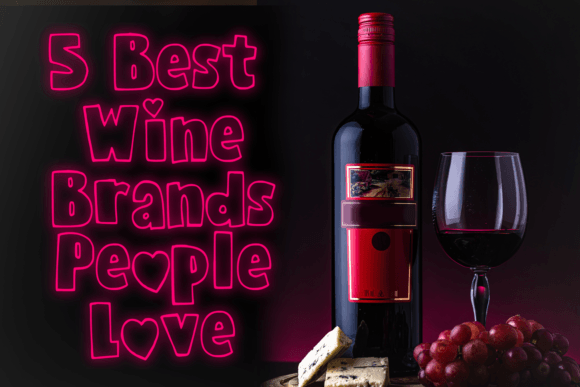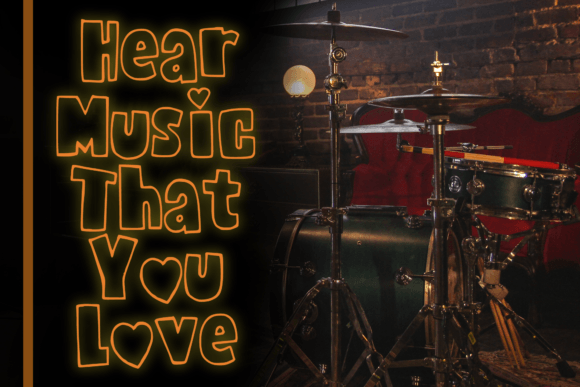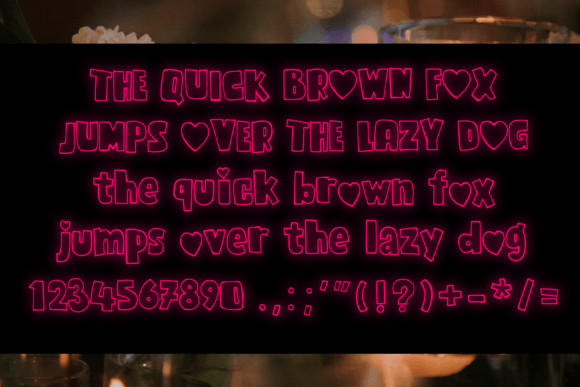
Introduction to Bold Heart Outline Font
As you sit in front of your computer, staring at a blank canvas, the creative juices start flowing. You have a vision, a feeling, a message you want to convey through your design. But, sometimes, it’s the smallest details that can make all the difference. This is where the Bold Heart Outline Font comes in – a beautiful, handmade paint font that adds a touch of whimsy and personality to your creative project.
Whether you’re designing a t-shirt for a loved one, creating a greeting card for a special occasion, or crafting a sticker for a fun event, the Bold Heart Outline Font is the perfect design resource to bring your ideas to life. Its high-quality, transparent background makes it easy to use, and its free download means you can get started right away.
- Unique and Creative Design: Bold Heart Outline Font is a high-quality design resource perfect for creative projects that require a touch of elegance and sophistication.
- Perfect for Designers and Artists: Bold Heart Outline Font is a versatile design resource that can be used in various creative projects, from graphic design to digital art and more.
As a designer, I’m always on the lookout for high-quality fonts that can elevate my creative projects. Recently, I had the chance to try out the Bold Heart Outline Font, and here’s my honest review.
- ✨ The font is extremely bold and eye-catching, making it perfect for creating attention-grabbing designs.
- ✨ The outline design gives it a modern and edgy feel, which is ideal for trendy projects.
- ⚠️ The font may not be suitable for projects that require a lot of text, as it can be quite overwhelming.
- ⚠️ The transparent background can sometimes make the font difficult to read, especially on dark backgrounds.
Overall, I’m impressed with the Bold Heart Outline Font. It’s a great design resource for creative projects that require a bold and modern touch. While it may have some limitations, it’s definitely worth trying out for your next design project.
The Bold Heart Outline Font is ideal for a variety of creative projects, including: social media graphics, presentation slides, posters, and brochures. Its high-quality design and transparent background make it perfect for a range of applications.